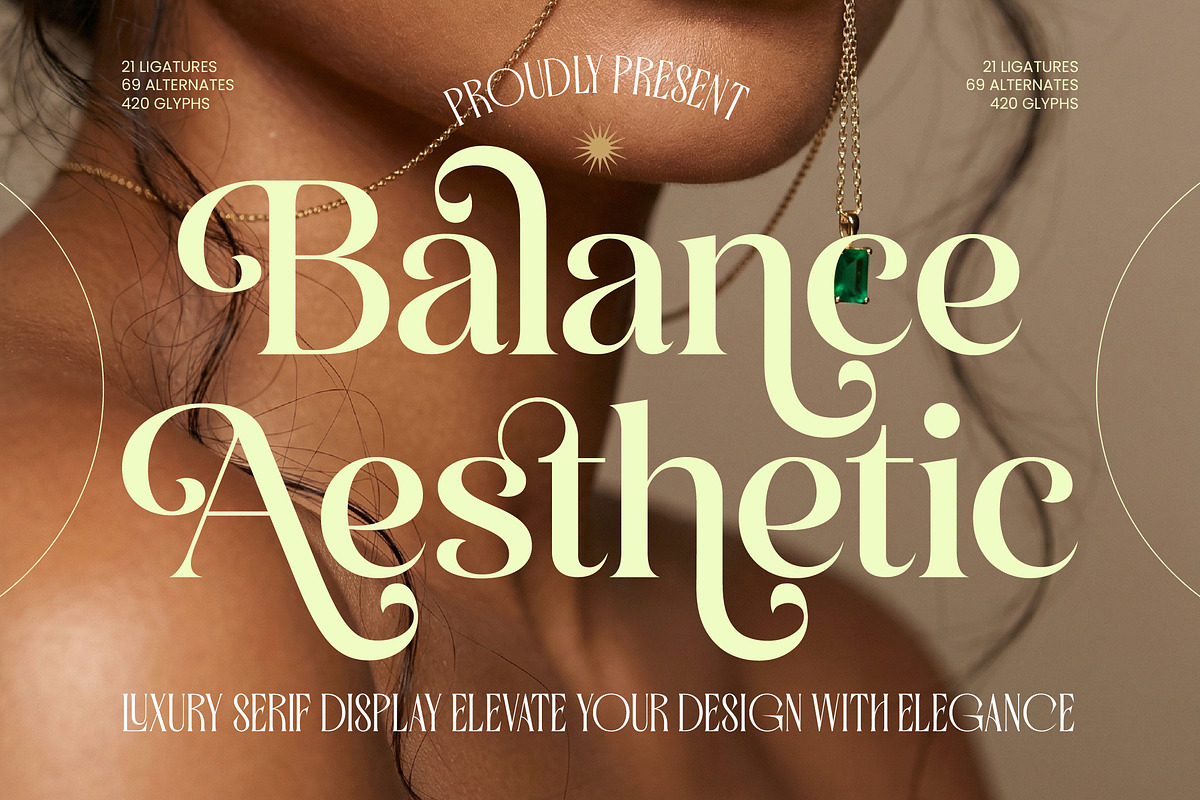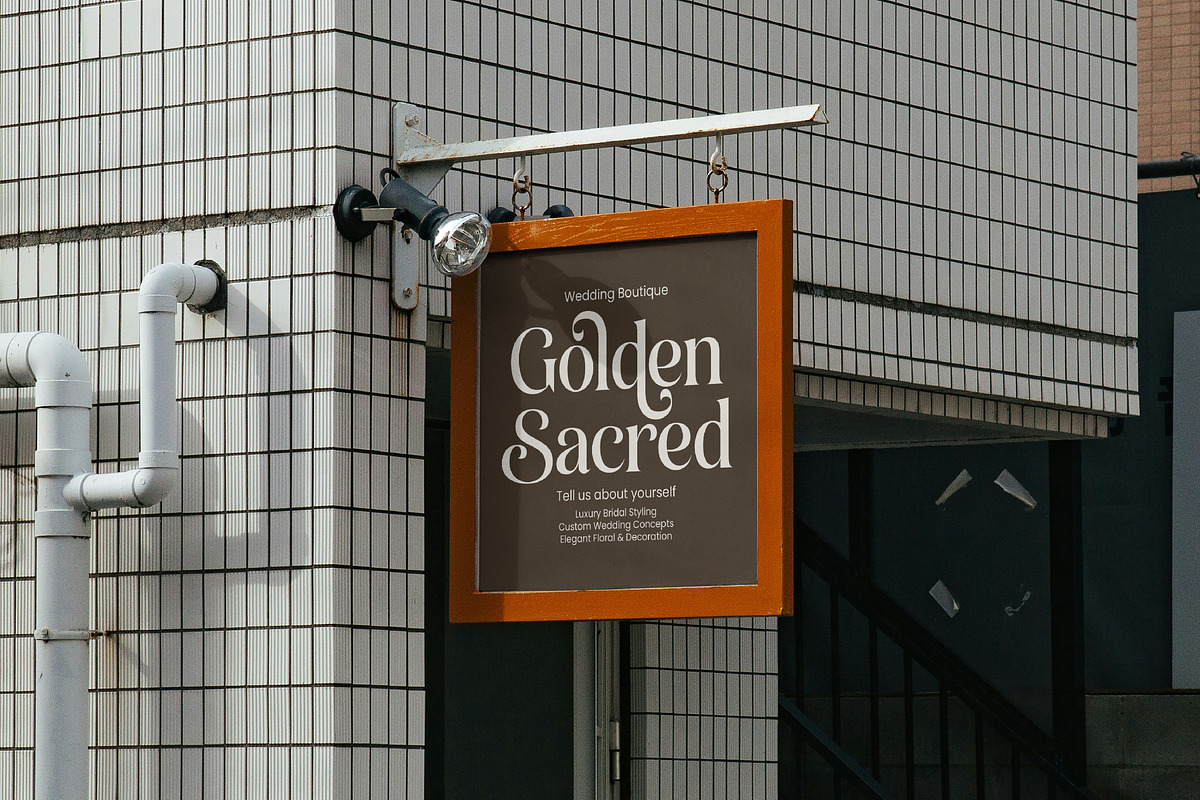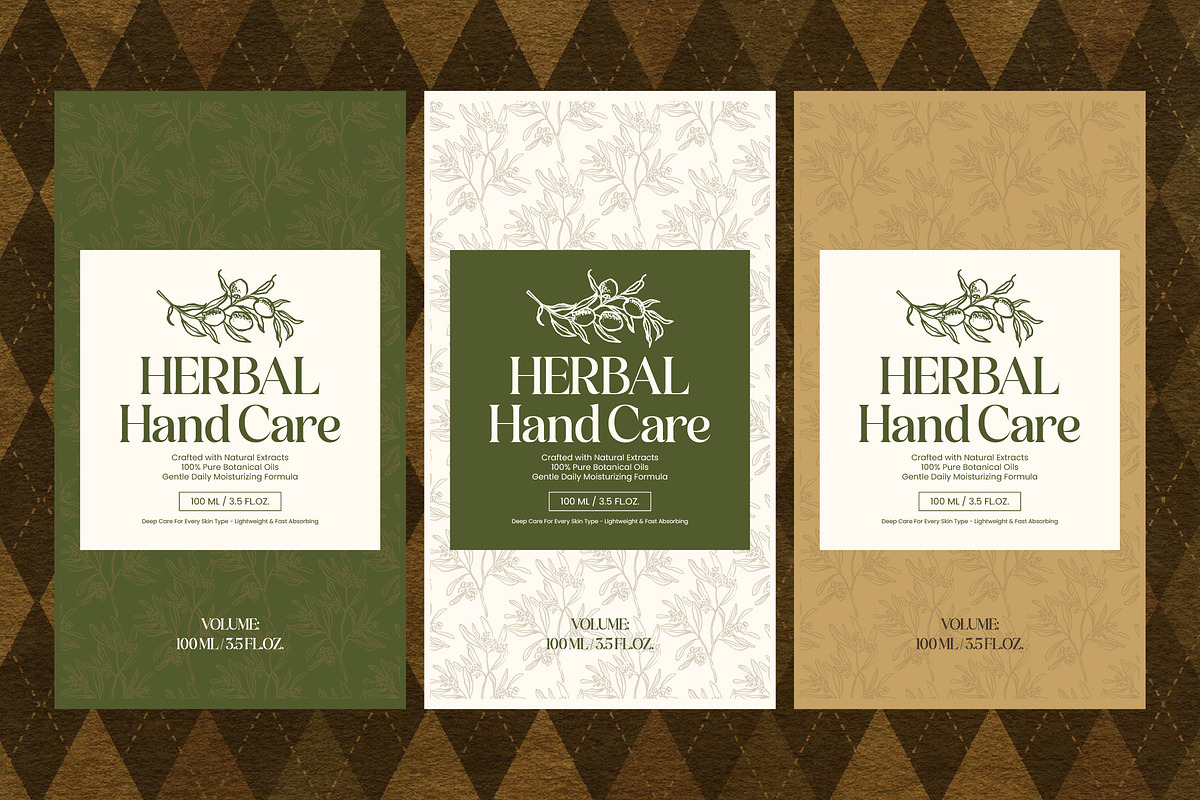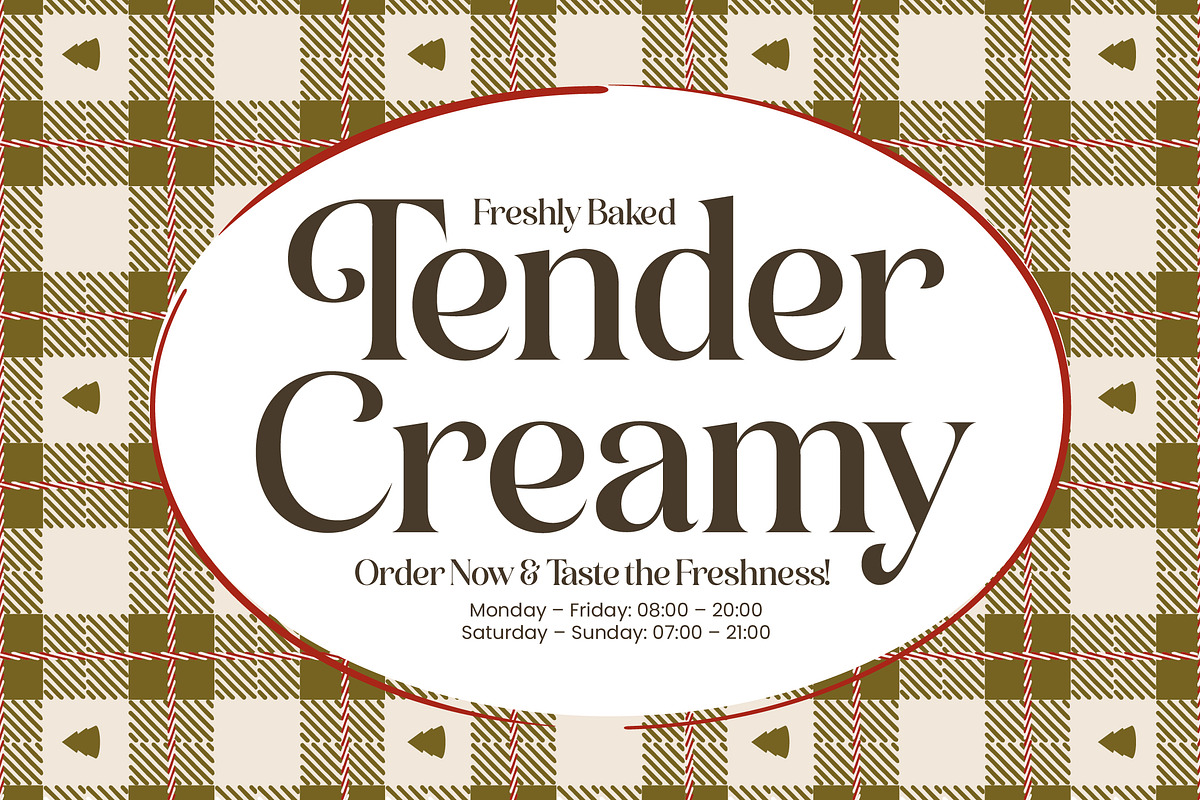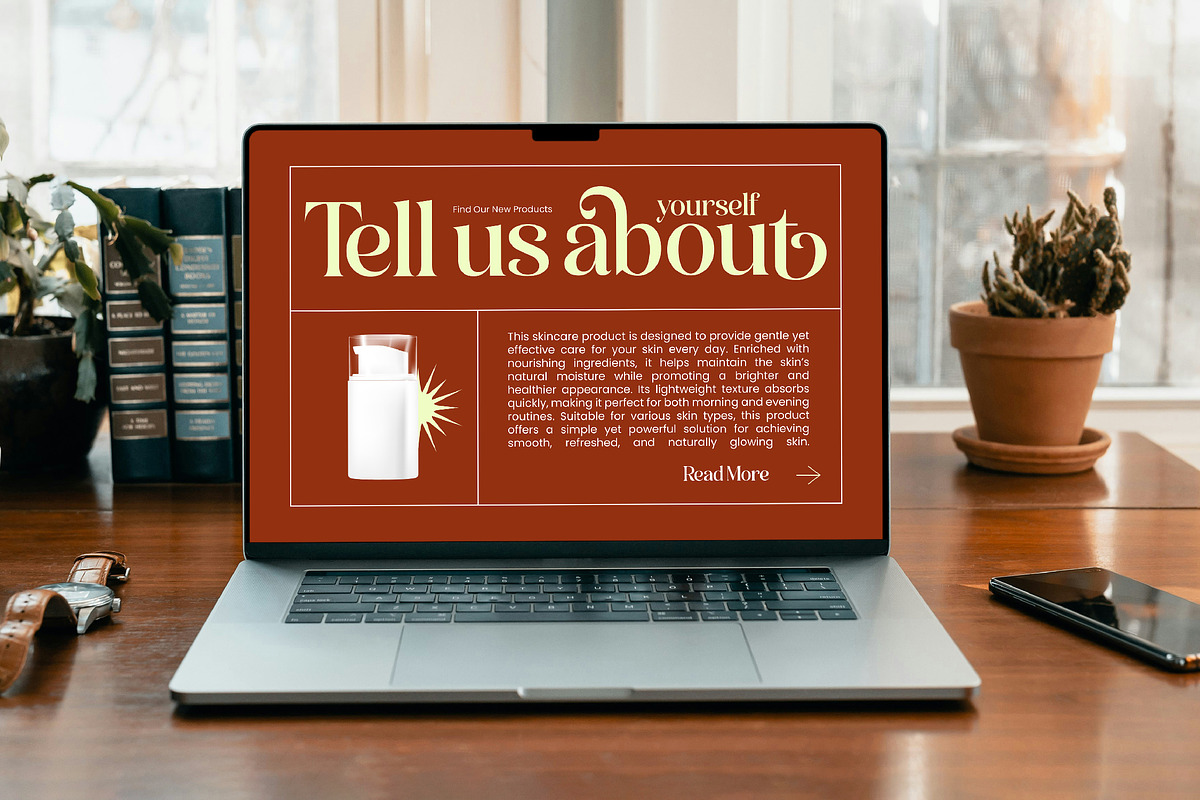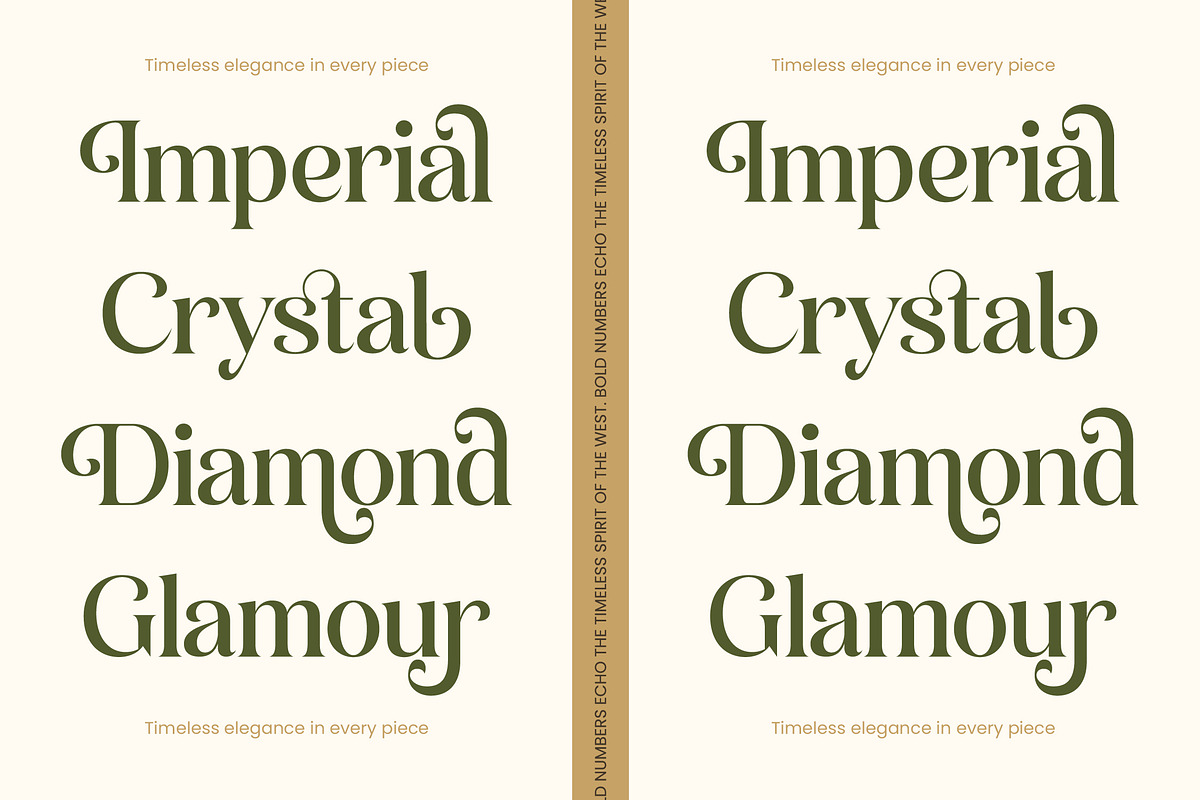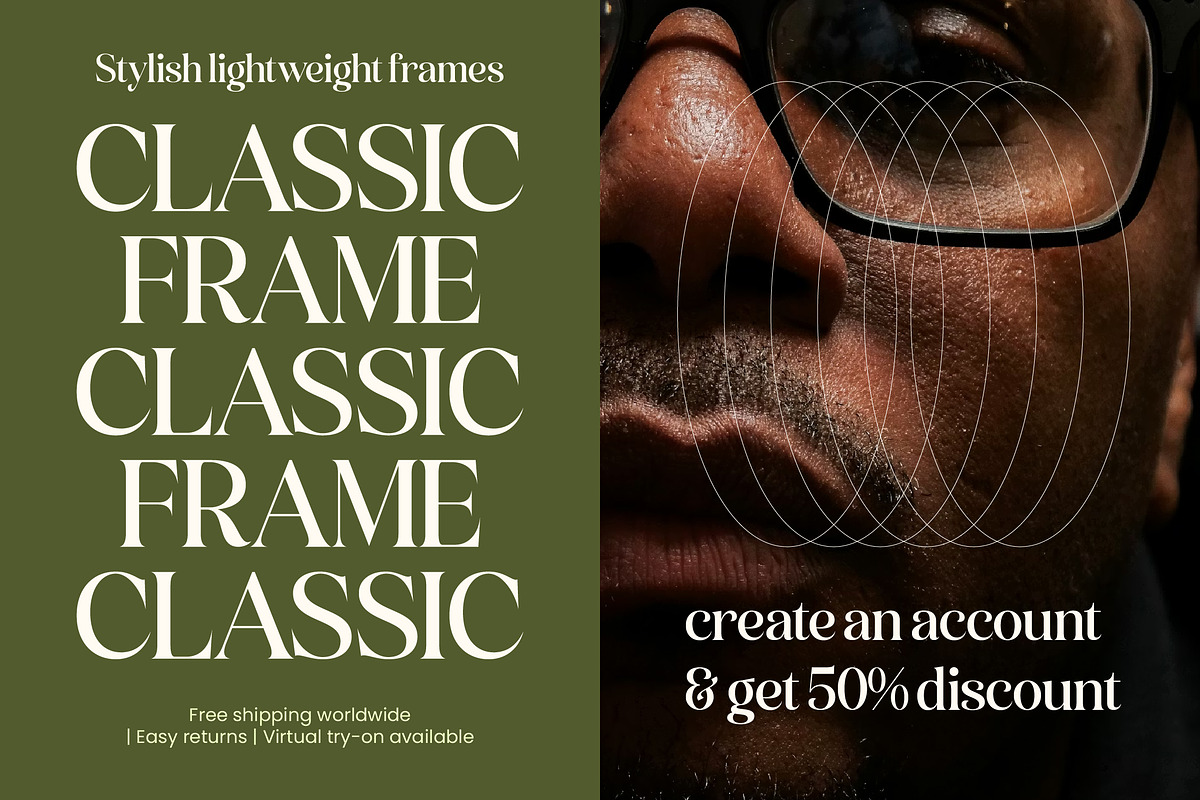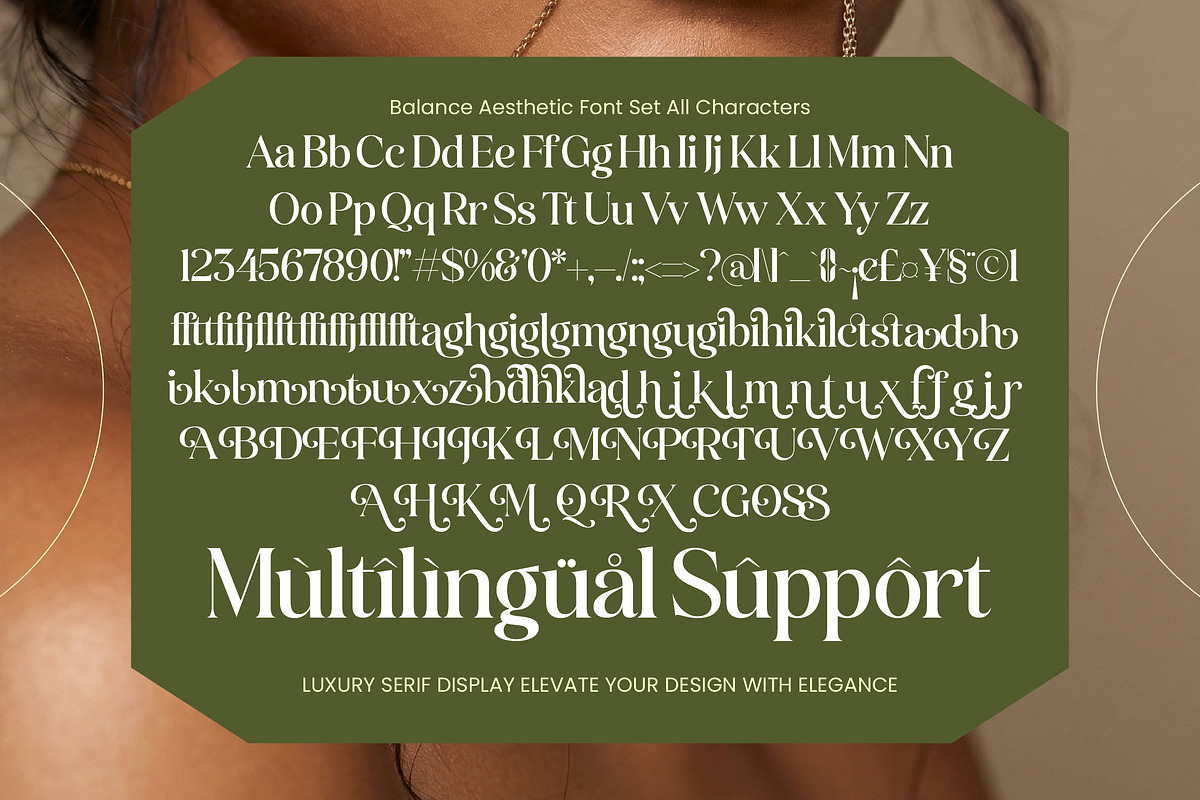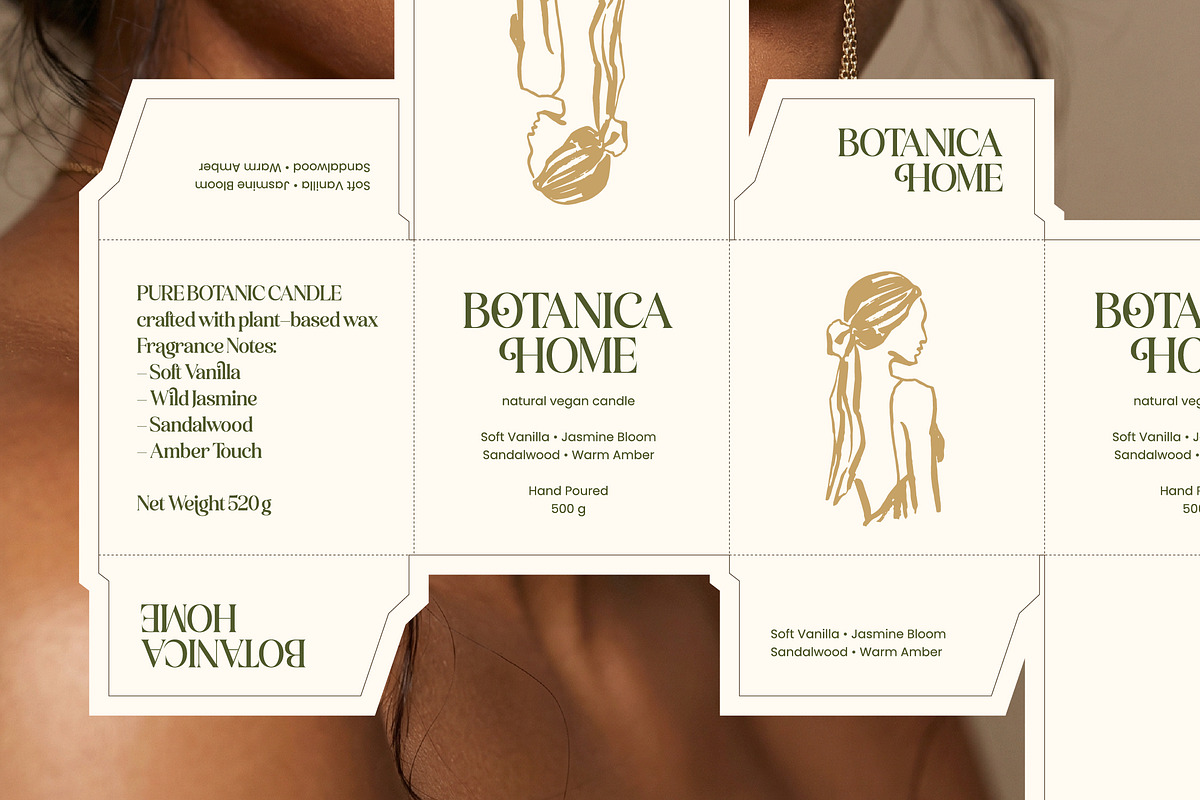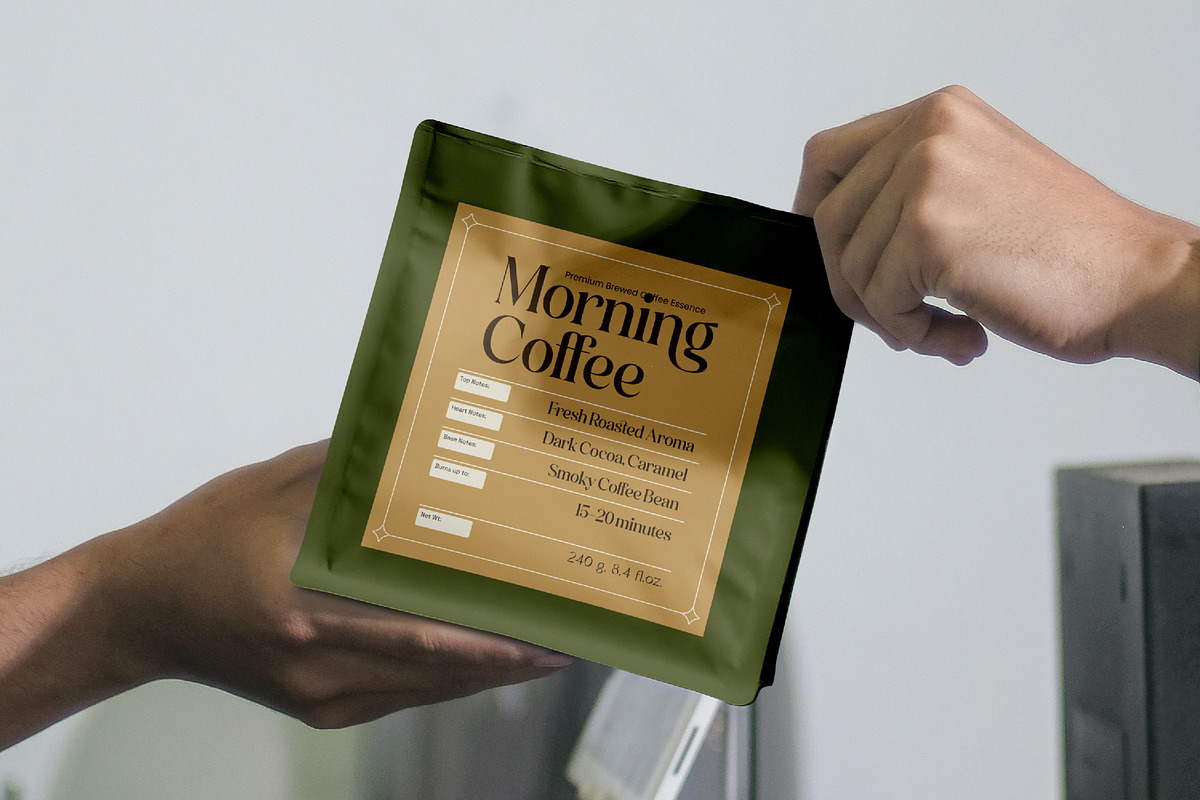
Balance Aesthetic Luxury Serif
Balance Aesthetic – Luxury Serif Display , Elevate your visual identity with the timeless sophistication of Balance Aesthetic – Luxury Serif Display. This typeface masterfully blends classical serif elegance with modern flair, offering a high-contrast silhouette that commands immediate attention. Its fluid curves and sharp terminals create a harmonious aesthetic that is both bold and graceful, making it an essential tool for designers seeking to convey exclusivity and high-end prestige in every character.
Experience unparalleled creative freedom through an expansive library of 21 unique ligatures and 69 stylistic alternates. The meticulous craftsmanship behind Balance Aesthetic – Luxury Serif Display ensures that every word becomes a custom piece of art. With a total of 420 glyphs, this luxury serif display font provides the technical depth required for dynamic layouts and bespoke typography, allowing you to tailor the visual rhythm of your text to meet specific brand requirements.
Global accessibility is at the heart of this font’s design, ensuring your message resonates regardless of linguistic boundaries. With its extensive multilingual support, Balance Aesthetic – Luxury Serif Display adapts seamlessly across global markets, making it incredibly versatile for international projects. This comprehensive character set guarantees that the font maintains its refined proportions and luxurious appeal across various languages, providing a consistent brand voice for global campaigns and cross-border marketing efforts.
Transform your brand presence with a typeface that is perfect for luxury branding, editorial design, and high-end packaging. Whether you are crafting glamorous logos, fashion magazine mastheads, or premium jewelry advertisements, Balance Aesthetic – Luxury Serif Display delivers a sophisticated edge. It is the ideal choice for cosmetic labels, social media branding, and upscale wedding stationery where a touch of refined opulence is paramount to achieving a world-class finish.